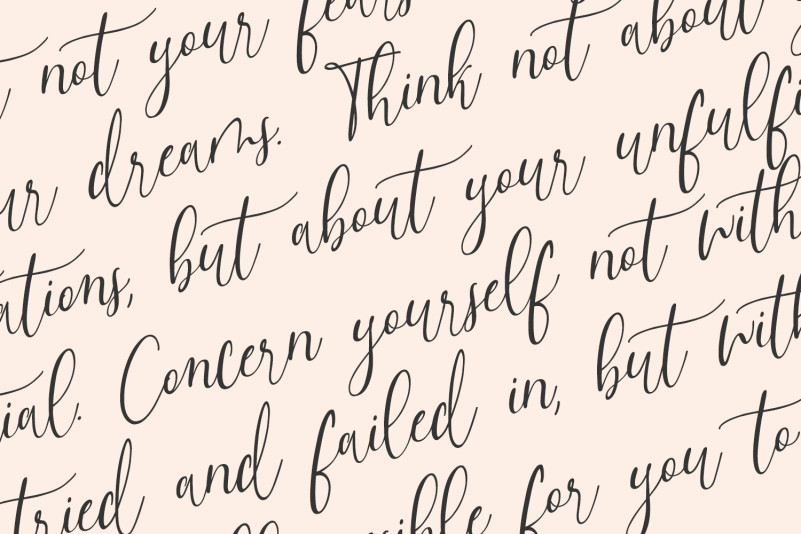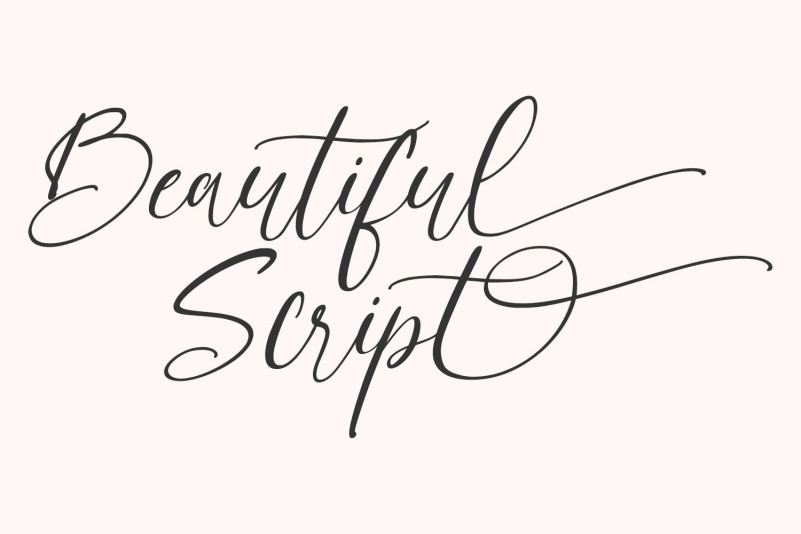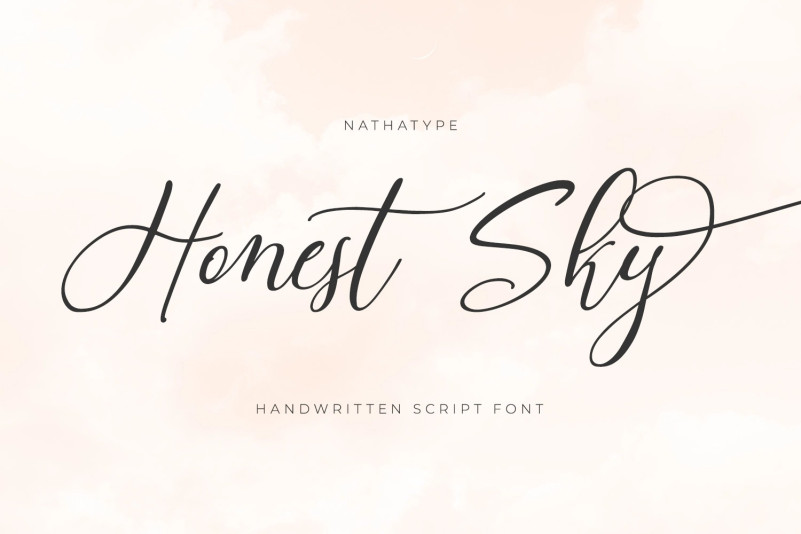
Honest Sky Font
Honest Sky Script Font is a script font made from handwriting to show modern, elegant designs to any of your designs. Show your lovely, unique points of view with this font script. The letters are created in interconnected cursive styles with a lot of curved wipes. The lines’ proportions and thickness are consistent enough. Use Honest Sky for big-sized texts for a legibility reason. Enjoy the available features in this font.